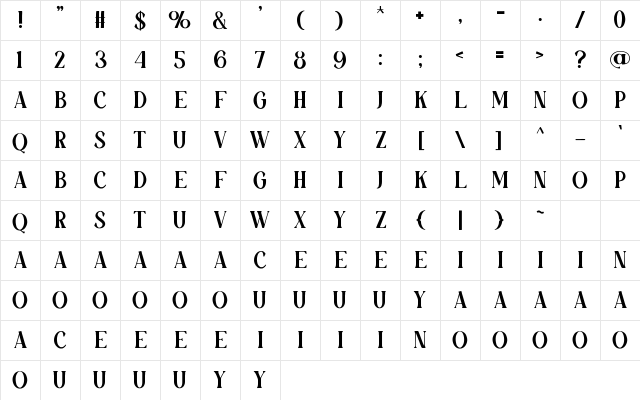
JABROWZKY is a composed and adaptable typeface that performs quietly and consistently across a wide range of design contexts.
Pro Tip: Use JABROWZKY in both headline and body roles to test its range before committing to a single application.